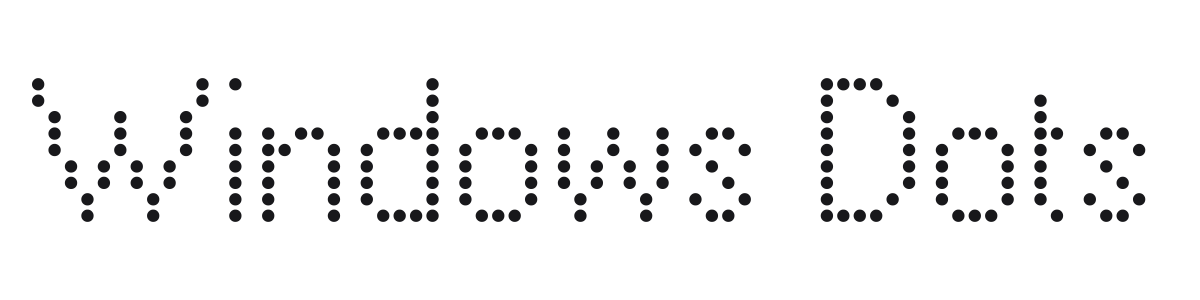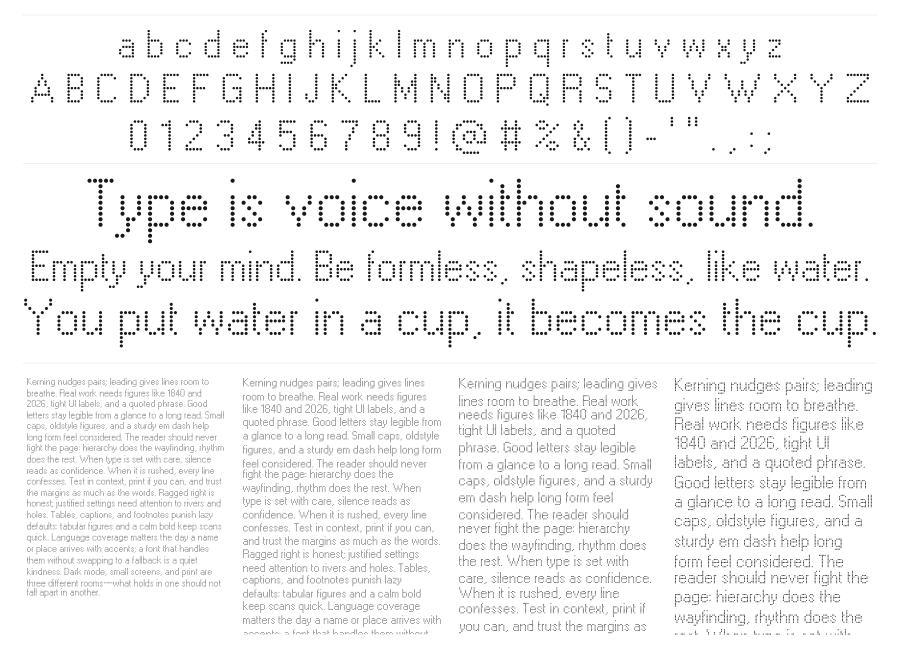
Windows Dots
Windows Dots is a dot-matrix display font by Levi Szekeres, built entirely from uniform circular dots arranged in a grid to simulate classic LED or early digital signage. The author describes it as 'melting pixels,' and there is a looseness to how the dots cluster that gives it warmth despite its technical construction. It reads strongly at large sizes and fits naturally into retro-tech branding, gaming interfaces, and music or entertainment contexts.